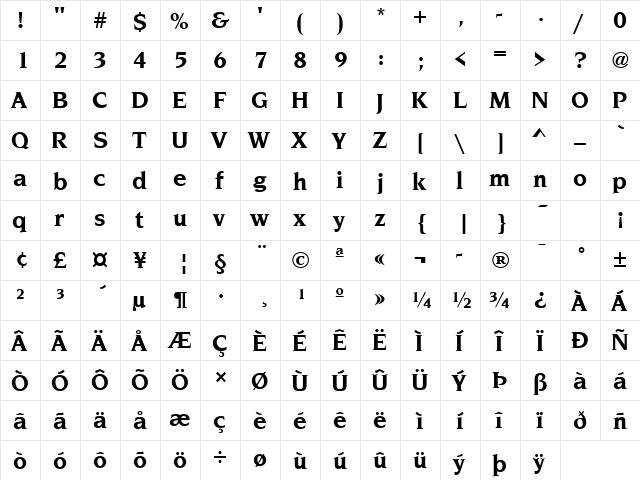
Navarro Bold
Design Context for Navarro Typeface
Navarro offers clean, dependable letterforms without strong stylistic allegiance, making it a practical choice for designers who need flexibility. The heavy weight commands attention and anchors typographic hierarchies.
Pro Tip: Use Navarro in both headline and body roles to test its range before committing to a single application.